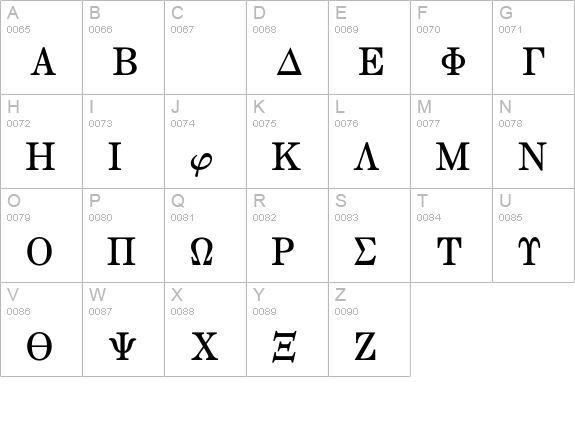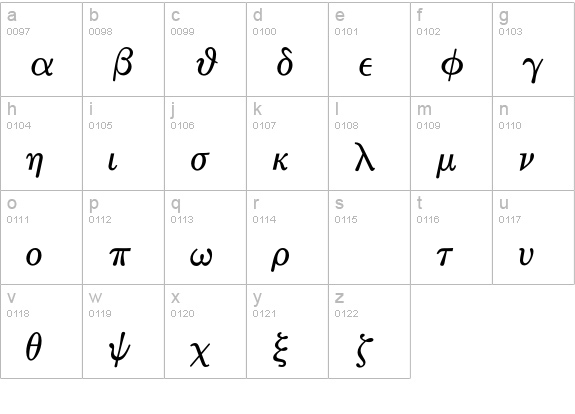
MathTechnicalP12 Font Details
MathTechnicalP12 is a professionally designed font that combines the elegance of mathematics with the precision of technical symbols. This font is perfect for anyone who needs to convey complex mathematical equations or technical diagrams in a visually appealing manner. With its crisp and clean lines, MathTechnicalP12 is ideal for use in academic papers, scientific journals, engineering reports, and any other documents that require the use of mathematical or technical symbols. One of the best things about MathTechnicalP12 is that it is completely free! That's right, this amazing font is freely available to download at FontsMarket.com. Whether you are a student, a researcher, or a professional in the field of mathematics or technical sciences, you can now enhance your work with this fantastic font without having to worry about any additional costs. MathTechnicalP12 offers a wide range of symbols and characters, including mathematical operators, Greek letters, arrows, and various technical symbols. It is incredibly versatile and can be used in a variety of contexts, from educational materials to professional presentations. So why settle for ordinary fonts when you can elevate your work with the extraordinary MathTechnicalP12? Download it for free today at FontsMarket.com and witness the transformation it brings to your mathematical and technical documents.